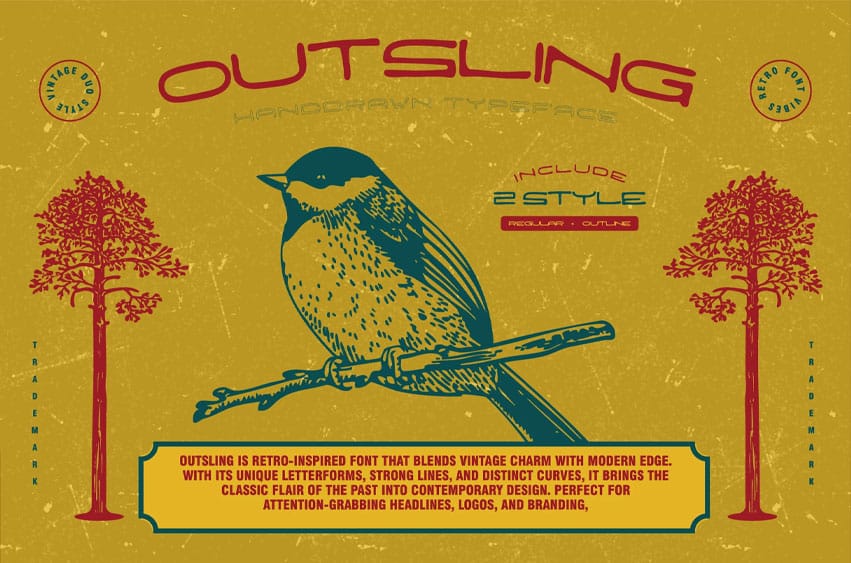
Outsling Font is a bold, retro-inspired font that blends vintage charm with modern edge. With its unique letterforms, strong lines, and distinct curves, it brings the classic flair of the past into contemporary design. Perfect for attention-grabbing headlines, logos, and branding, Outsling exudes a confident, dynamic style that commands attention.
Its clean, yet stylish retro aesthetics make it ideal for projects that aim to evoke nostalgia while maintaining a bold, fresh appeal. Whether you’re designing for a music festival, a product launch, or a retro-themed campaign, Outsling adds an undeniable touch of character and flair to any design.